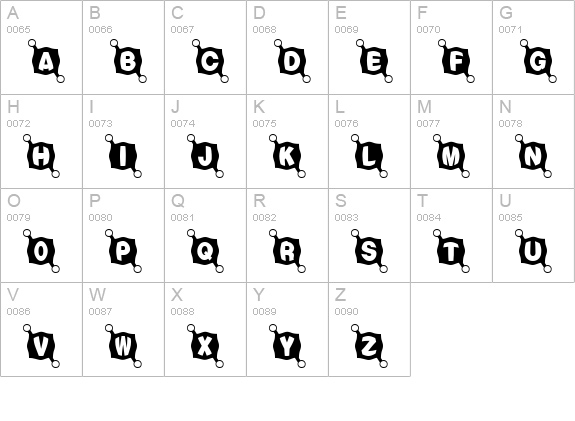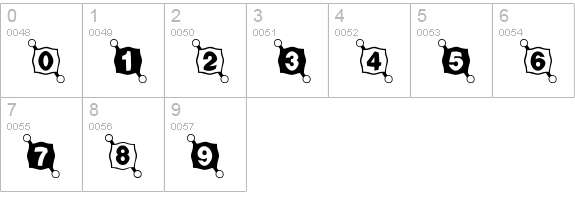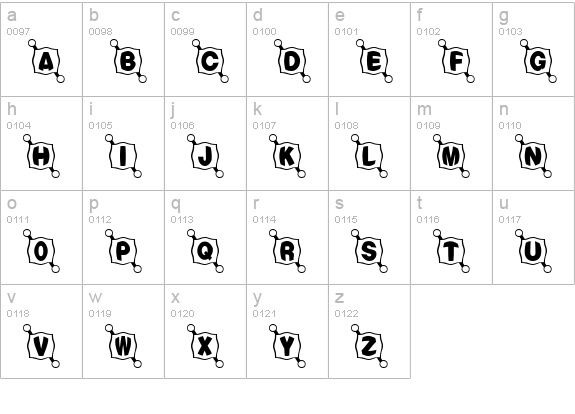
BallTack Font Details
Introducing BallTack font - a versatile and stylish typeface that is sure to make your designs stand out! With its unique blend of boldness and elegance, BallTack font is perfect for a wide range of projects, from branding and packaging to posters and social media graphics. What makes BallTack font even more appealing is that it is completely free to download at FontsMarket.com. Yes, you read that right - you can get your hands on this stunning font at no cost at all! Don't miss out on the opportunity to enhance your designs with the beauty and sophistication of BallTack font. Download it now and let your creativity soar!